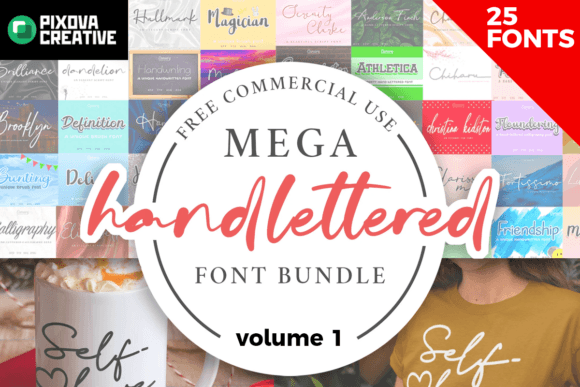
Mega Handlettered Vol. 1 Font
About the Mega Handlettered Vol. 1 Font
The wait is over! The incredible Mega Handlettered Vol. 1 Font is now available for your design toolkit. Introducing the MEGA 25 Handlettered font BUNDLE – 25 unique elegant, hand crafted fonts for your creative projects. Easily installed in a few clicks! Preview fonts down below!
Mega Handlettered Vol. 1 is ideally suited for headlines, short text blocks on posters, and branding elements where a bold, elegant statement is desired. Its handcrafted quality shines in applications like logos, social media graphics, and short quotes, adding a touch of personality and sophistication. However, avoid using it for body text or lengthy paragraphs; its decorative nature compromises readability at smaller sizes.
This font’s core personality is elegant yet bold. Consider pairing it with a clean sans-serif like Lato for a modern feel, or a classic serif such as Garamond for a more traditional yet balanced aesthetic. For a touch of playful contrast, a script font like Great Vibes could be effective, but use it sparingly.
Its strong visual impact makes it perfect for projects conveying luxury, craftsmanship, or a premium brand identity. Avoid using it for projects requiring high readability or a minimalist aesthetic.